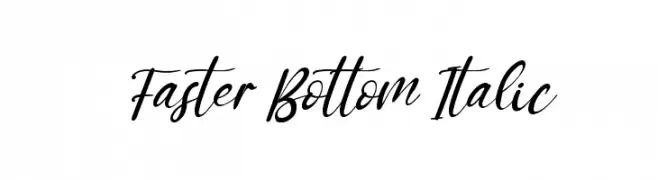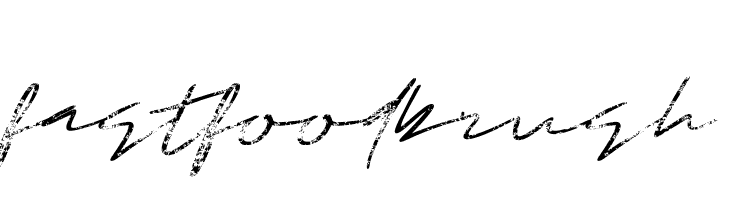
A futuristic, geometric font with rounded edges and a sci-fi aesthetic.
A bold, brush-style font with dynamic, slanted characters.
A dynamic, edgy font with sharp, angular strokes and a gritty, rebellious feel.
A dynamic brush script font with expressive, hand-drawn strokes.
A clean, modern font with balanced spacing and clear characters.
A playful and dynamic handwritten font with thin, flowing strokes and a casual elegance.
A bold, graffiti-inspired font with a dynamic and edgy style.
A bold, graffiti-inspired font with a playful, artistic style.